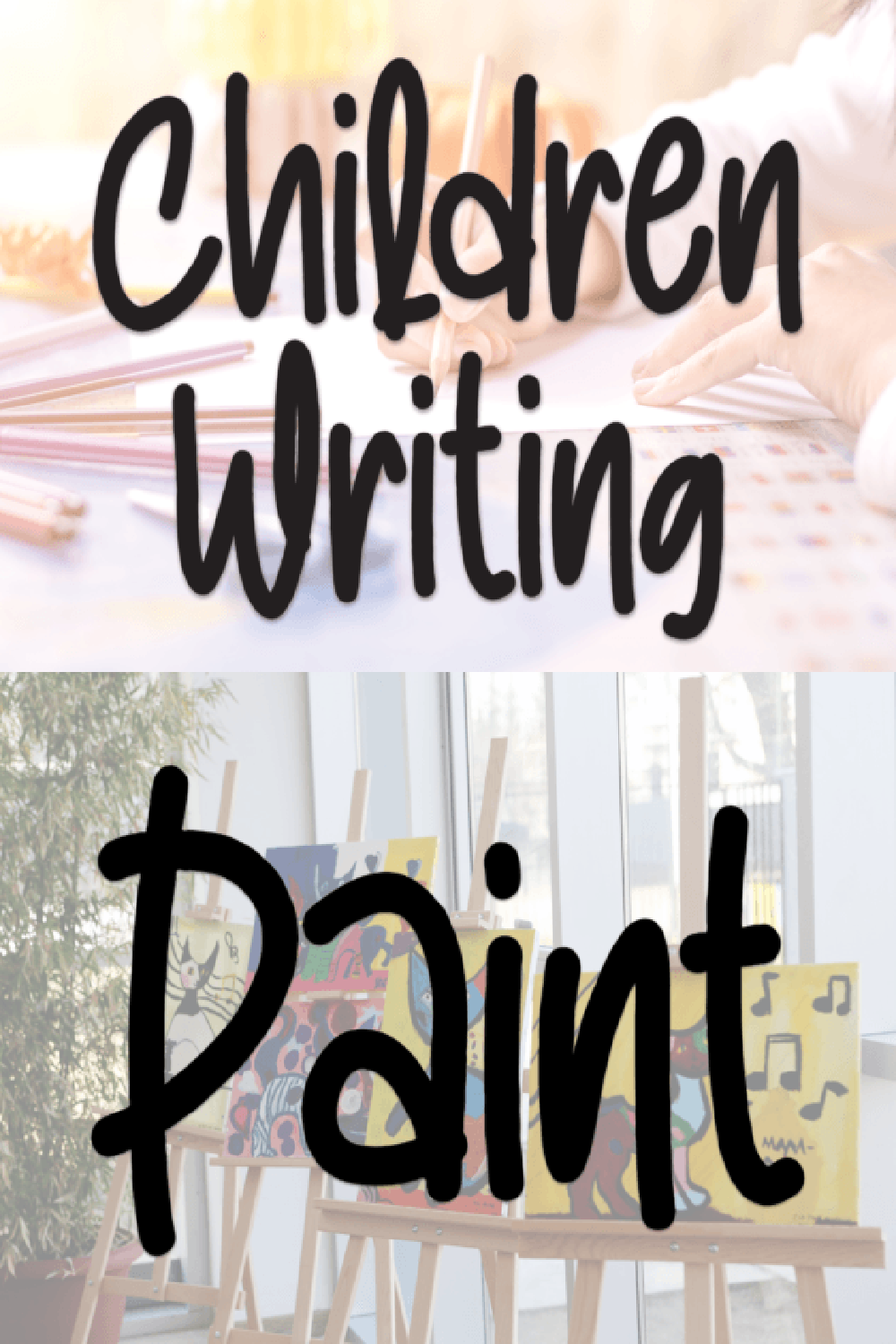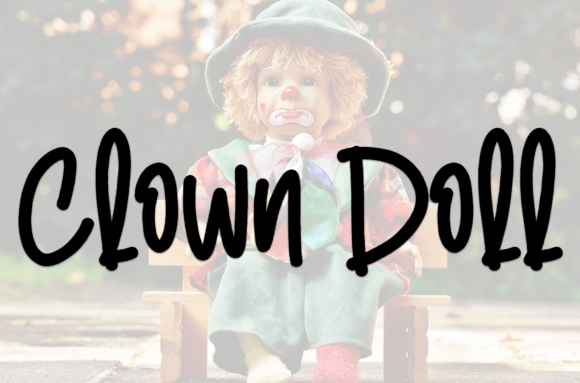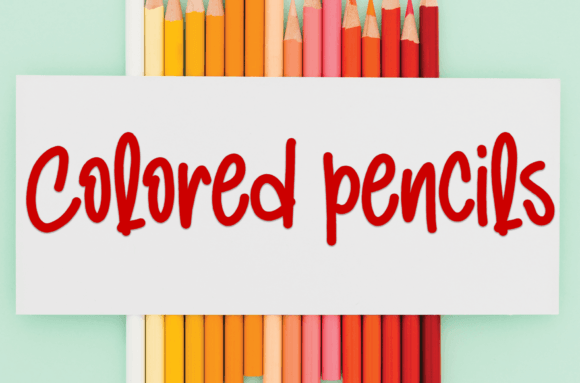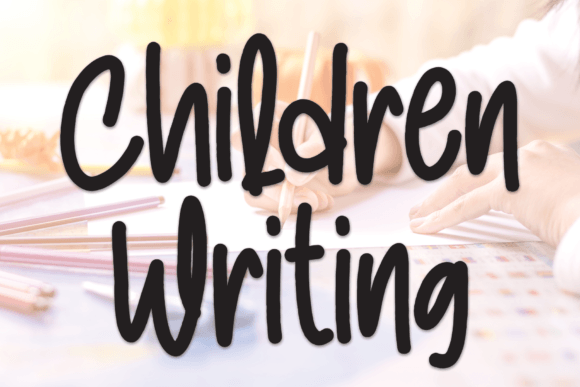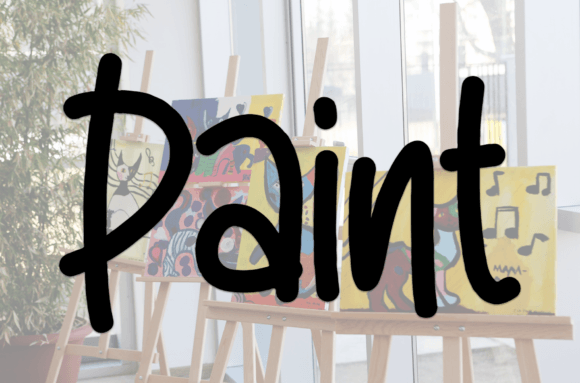
Children Writing Font
About the Children Writing Font
From logos to headlines, the Children Writing Font is the perfect choice for making a lasting impression. Children Writing is a sweet and friendly handwritten font. Cute and fun, this font is ideal for writing wedding invitations, cards, or any other design that might need a fun touch!
Children Writing Font Usage Examples